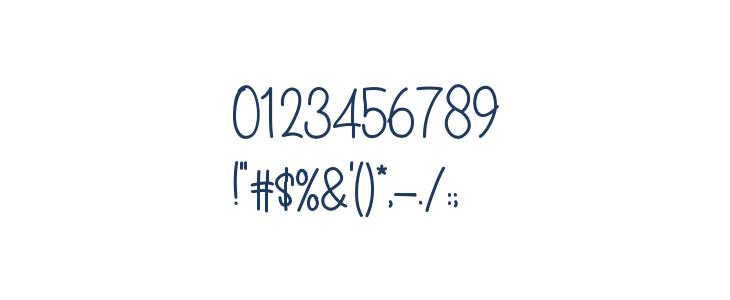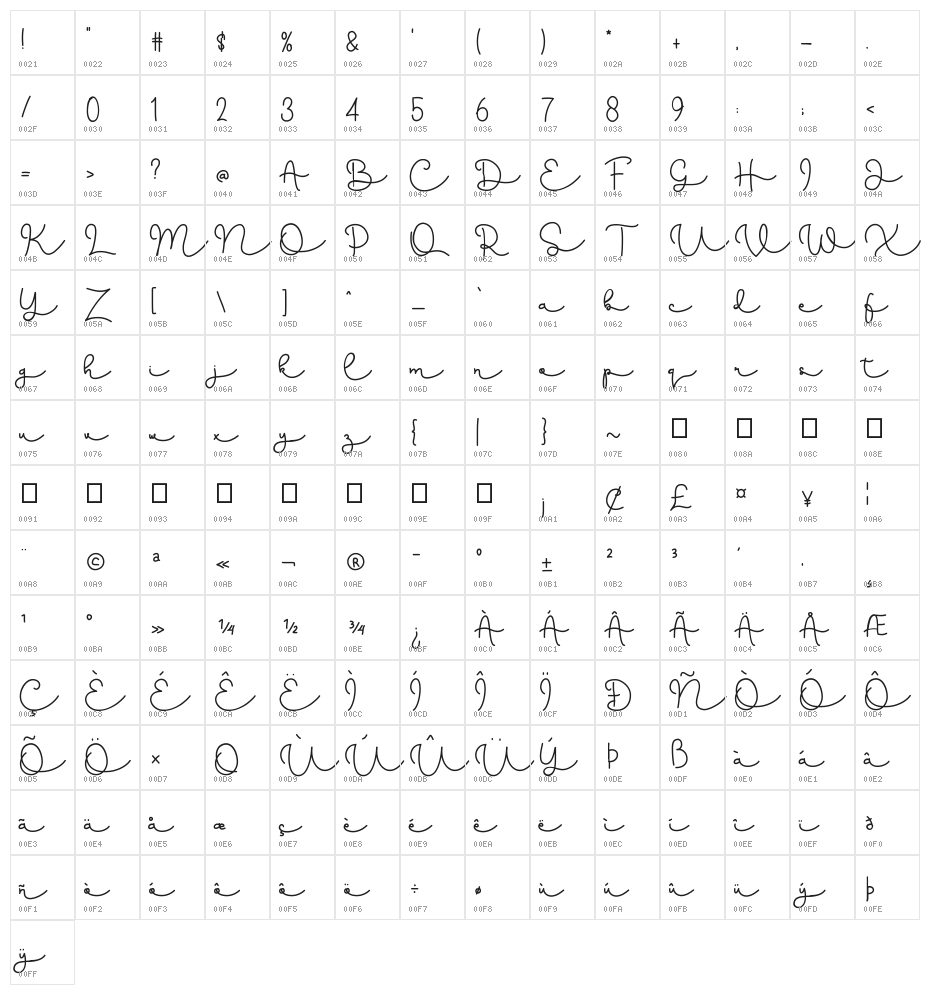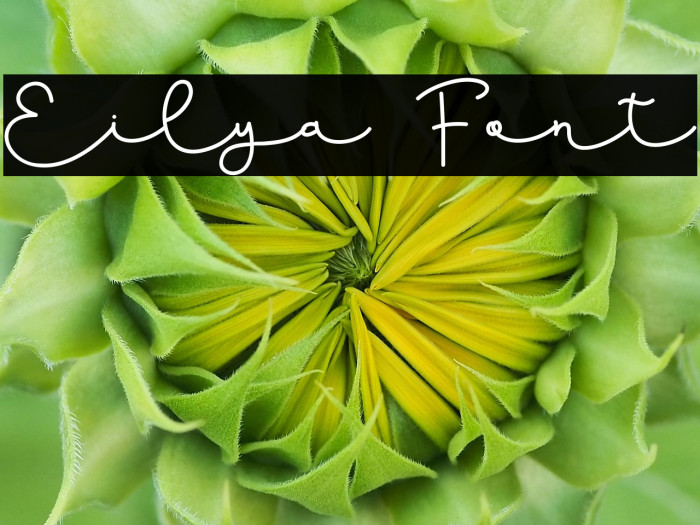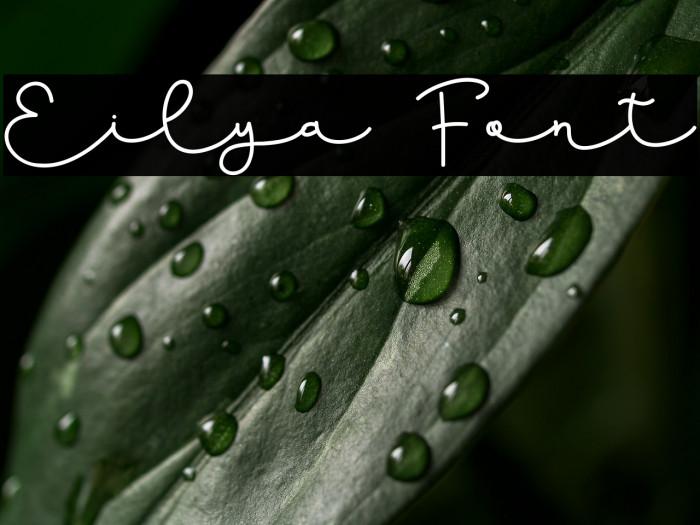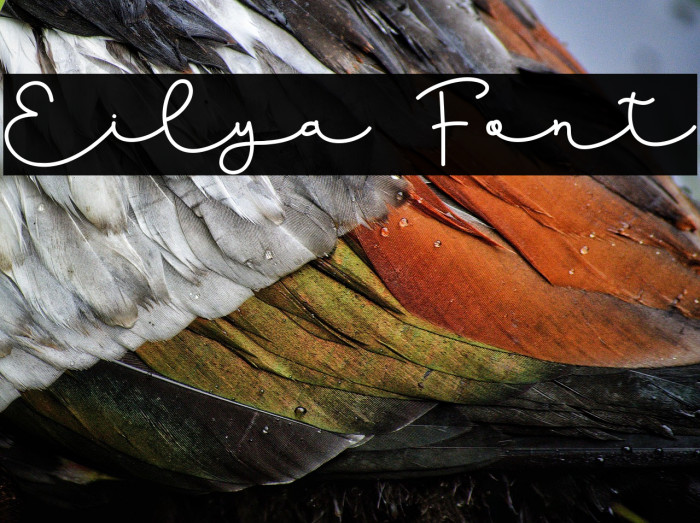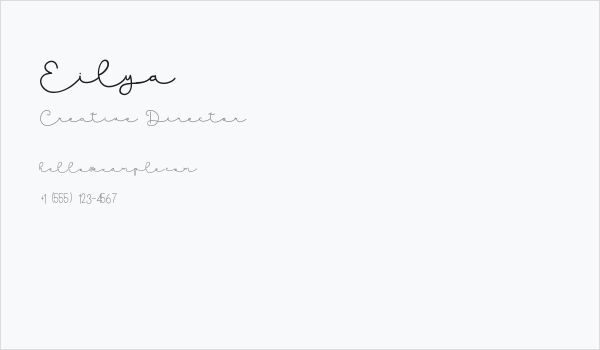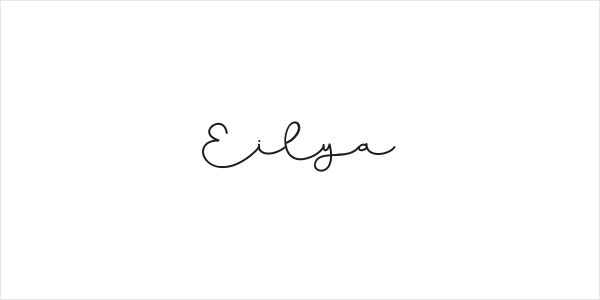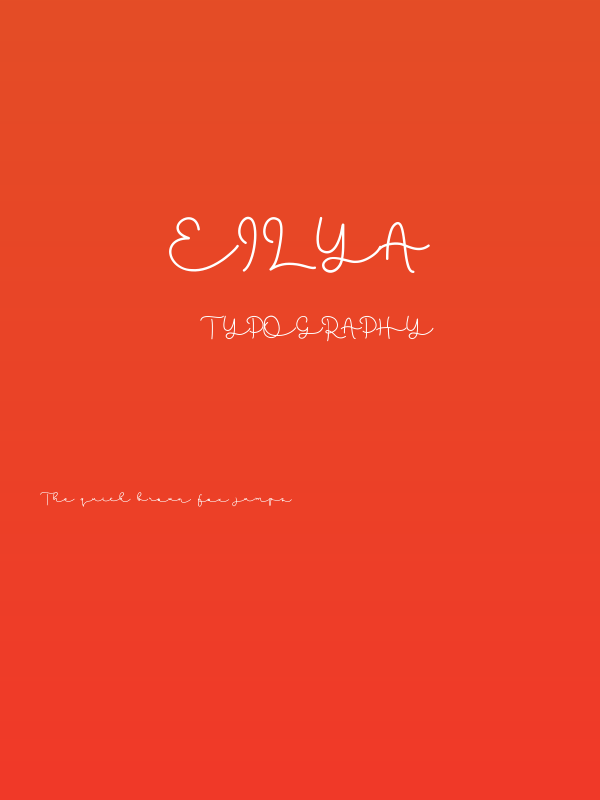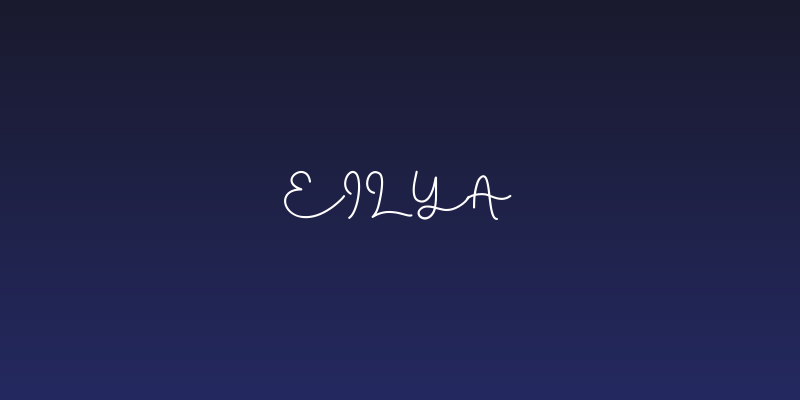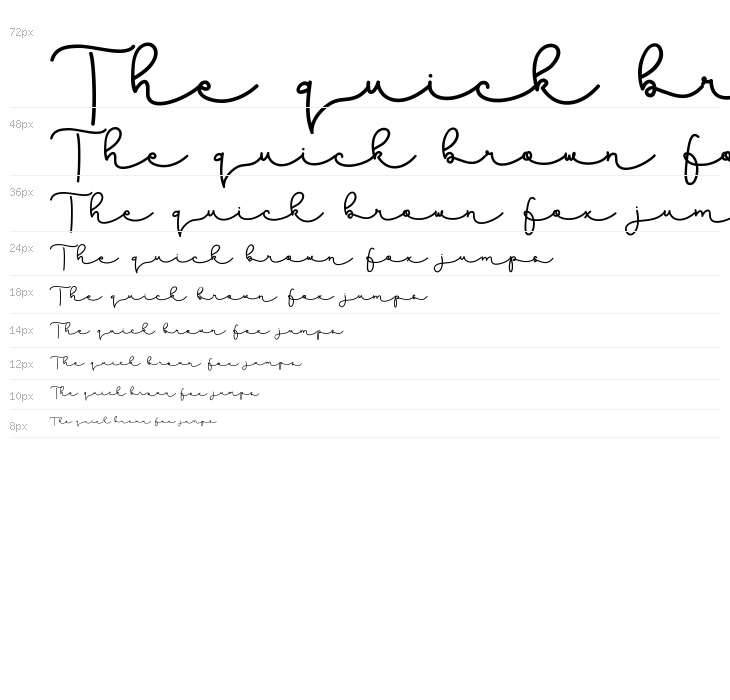
Eilya Font
Eilya Description
This font features a charming and fluid script style, characterized by its elegant, flowing lines and smooth curves. The uppercase letters are gracefully connected, giving a sense of continuity and movement, while the lowercase letters maintain a consistent rhythm with their rounded forms. The numerals are distinct and clear, maintaining the same fluidity as the alphabet. Special characters are thoughtfully designed to complement the overall aesthetic. This font exudes a sense of sophistication and creativity, making it ideal for projects that require a personal touch.
| Overall Style | Elegant and Creative |
| Use Case | Logos, Invitations, Decorative Text |